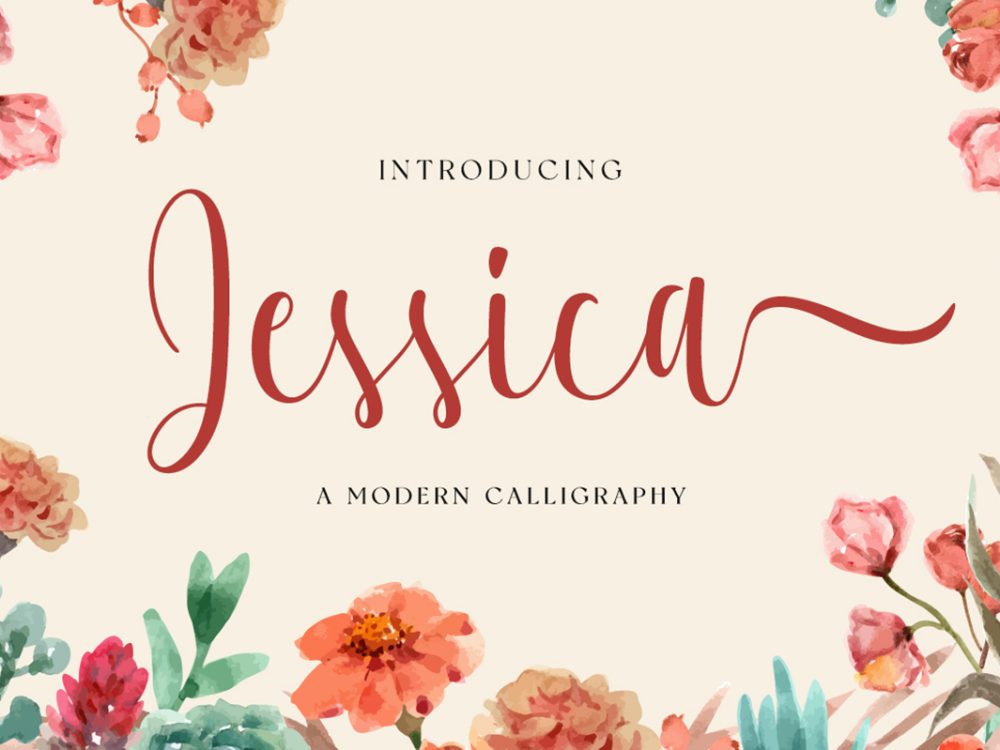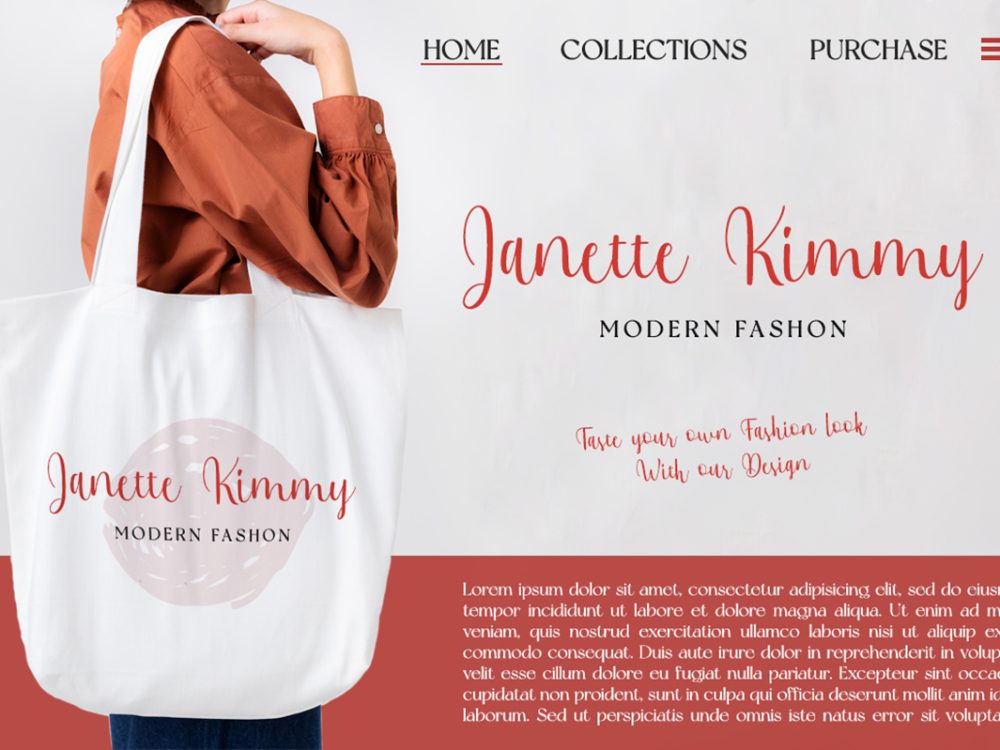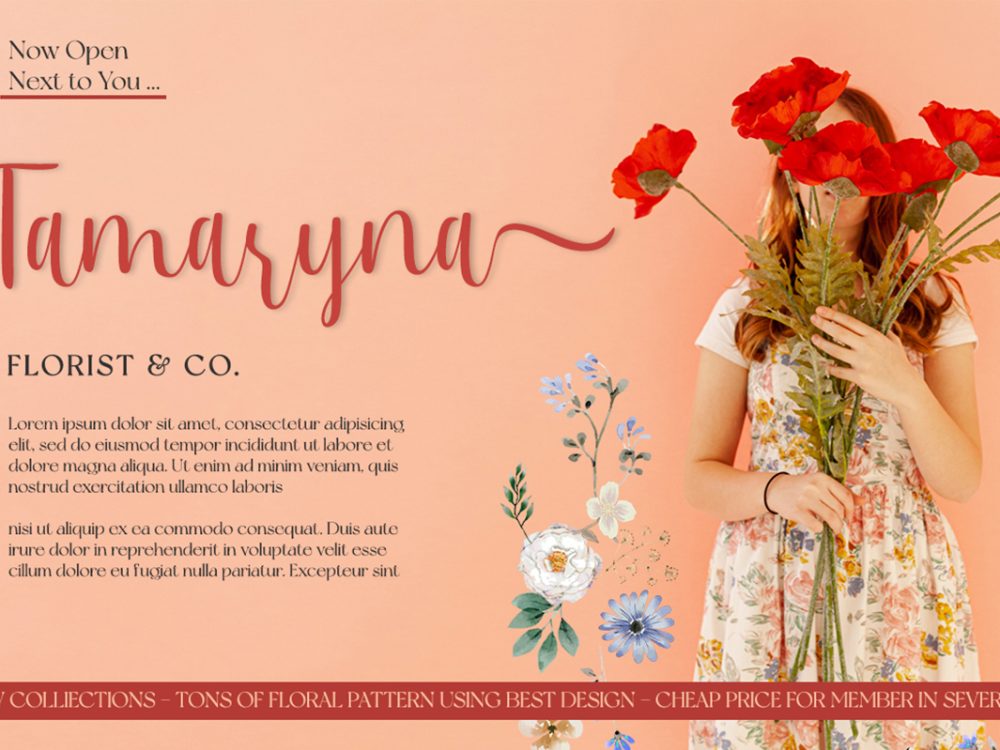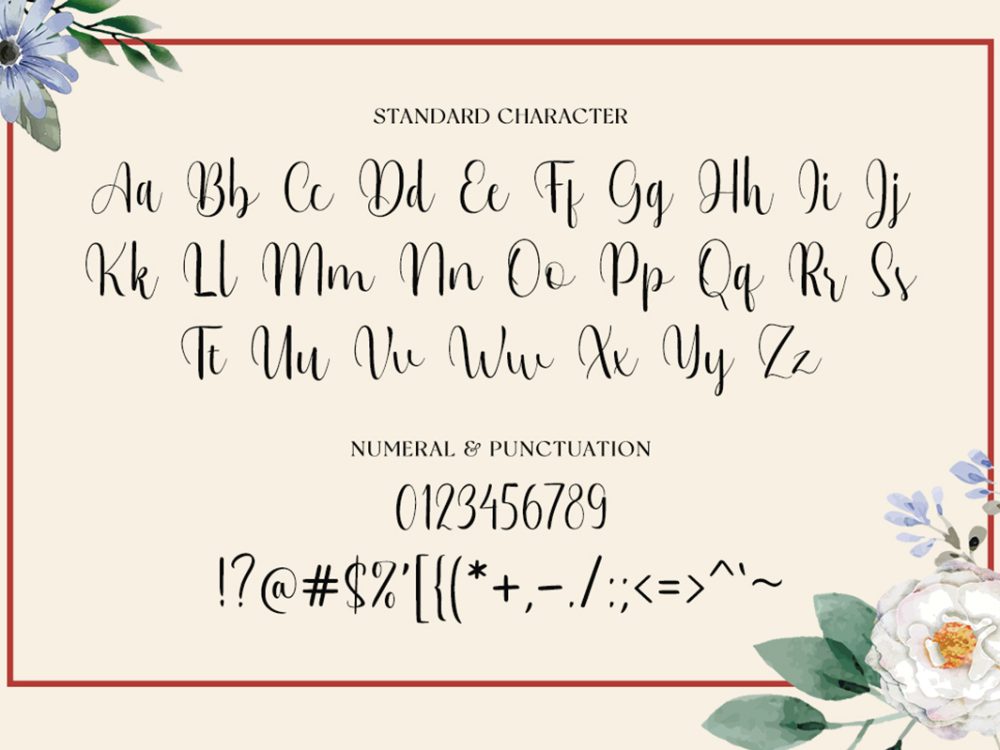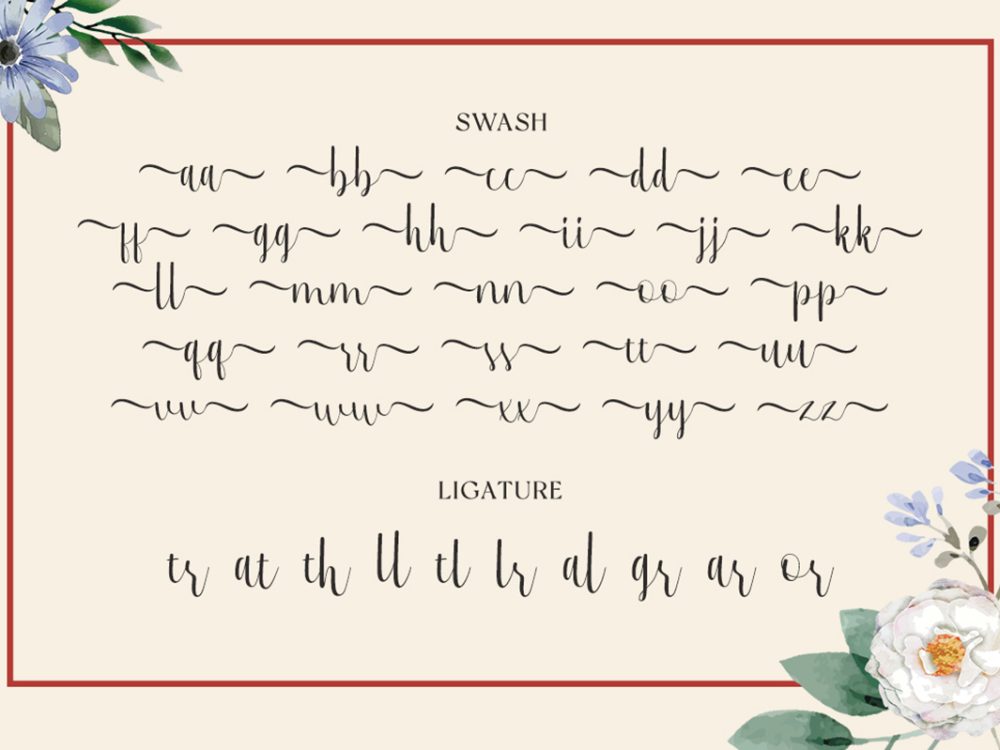
Jessica Free Font emanates an enchanting and dainty aura. It graces wedding invitations, thank you cards, quotes, greeting cards, logos, business cards, and various designs, bestowing a personalized and charming touch. If you like it don’t forget to check out the full version.